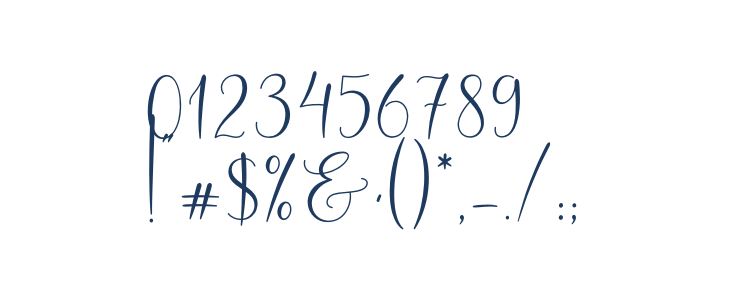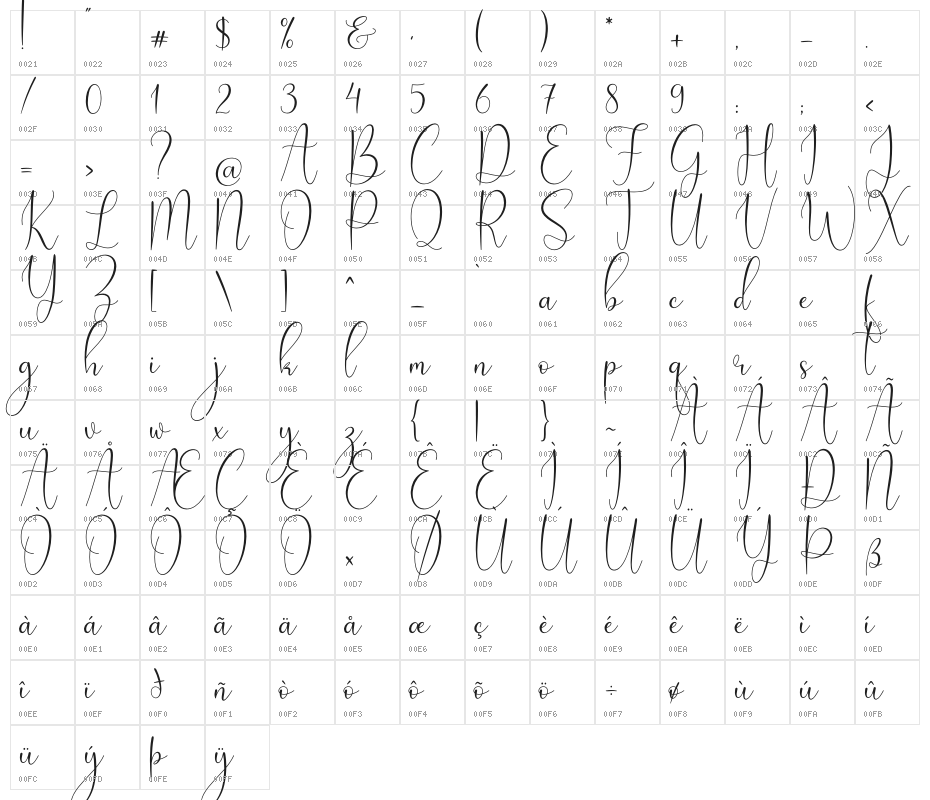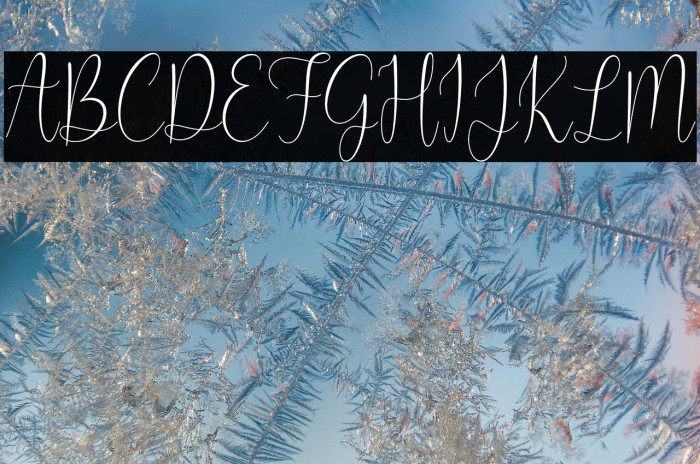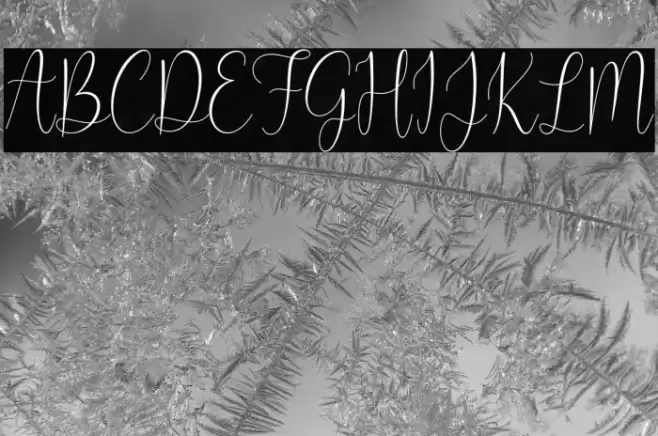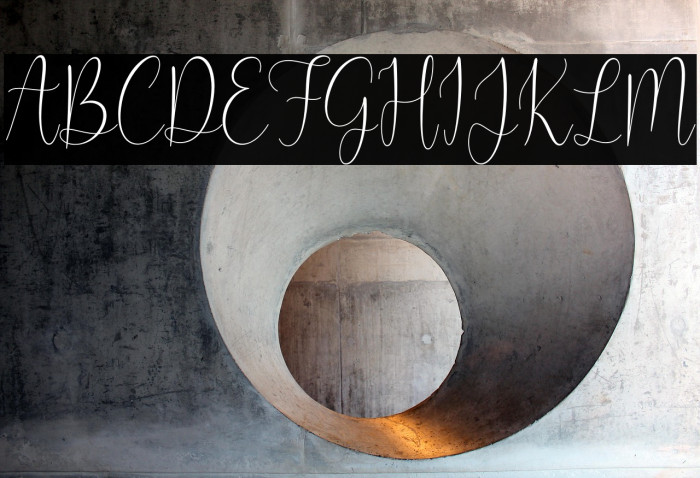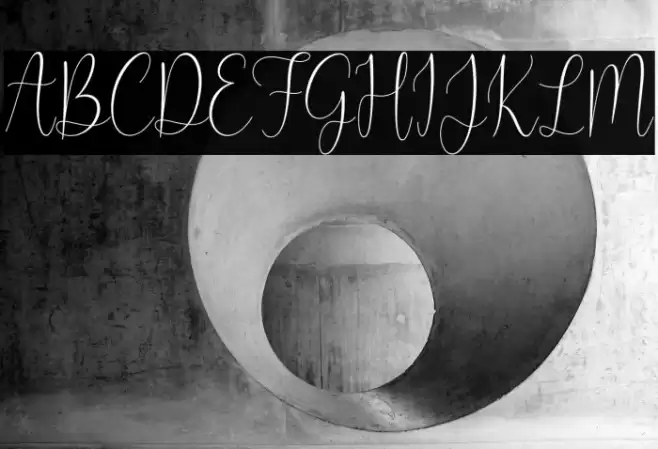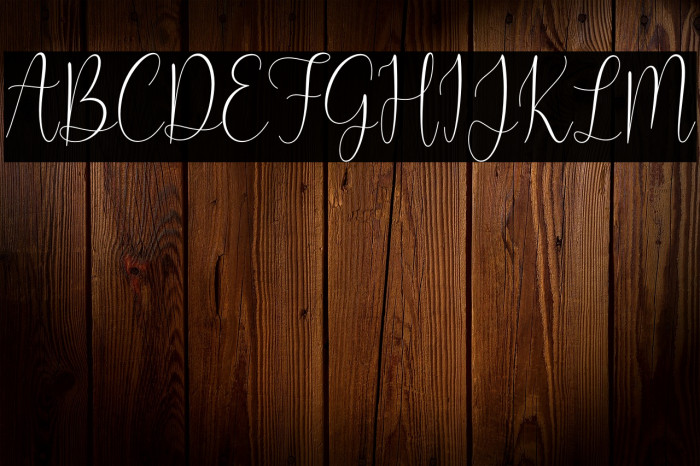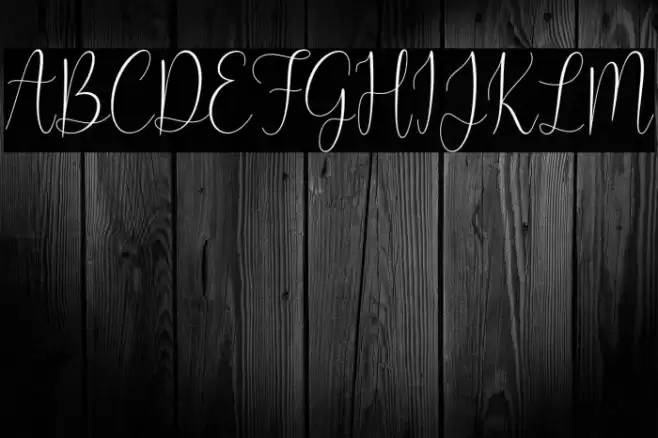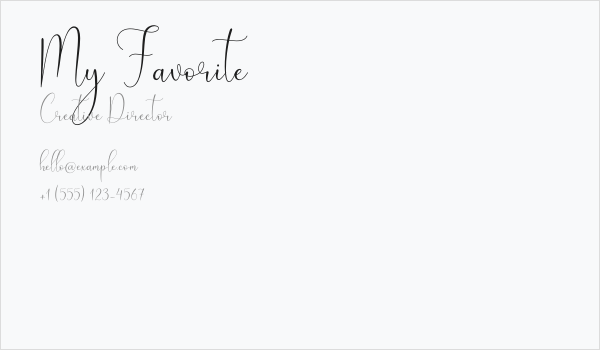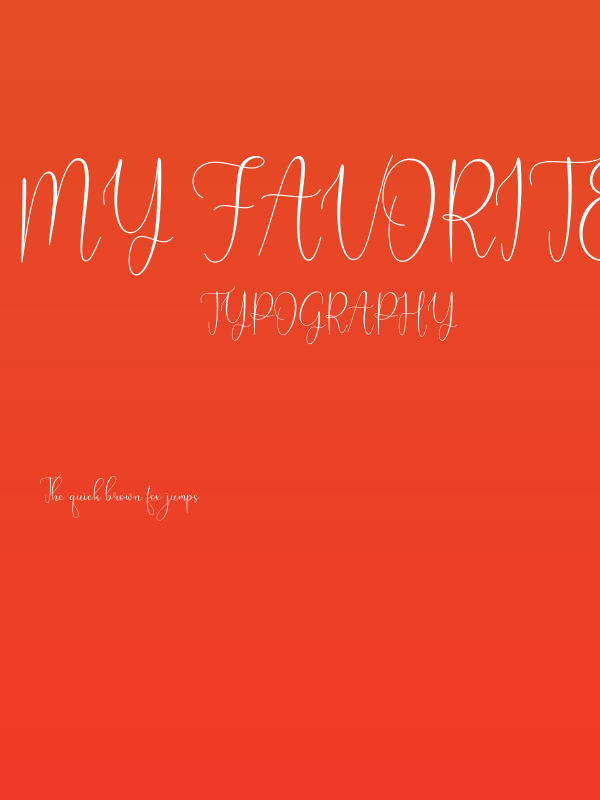
My Favorite Font
This font features an elegant, flowing script style with a modern touch. The uppercase letters are tall and slender, with graceful curves and loops that give a sense of fluidity and movement. The lowercase letters are more compact but maintain the same flowing aesthetic, creating a harmonious balance between the two cases. The numerals are consistent with the overall style, featuring smooth curves and a slightly playful character. Special characters are designed with the same attention to detail, ensuring they blend seamlessly with the rest of the font. The overall impression is one of sophistication and elegance, making it suitable for a variety of creative projects.